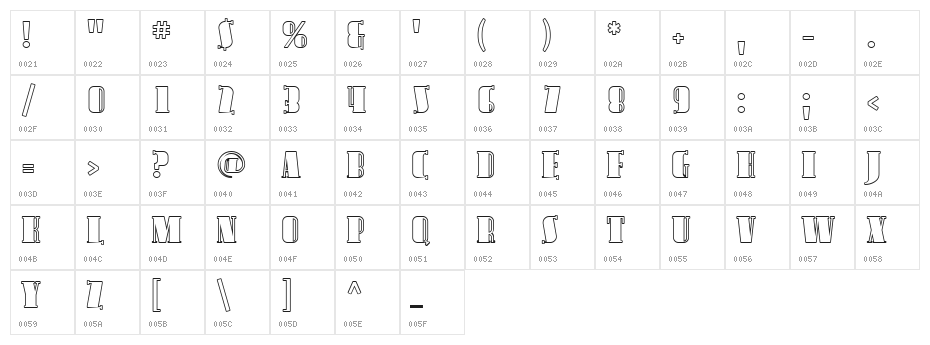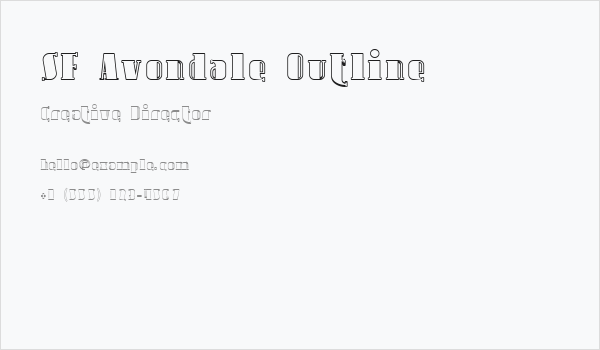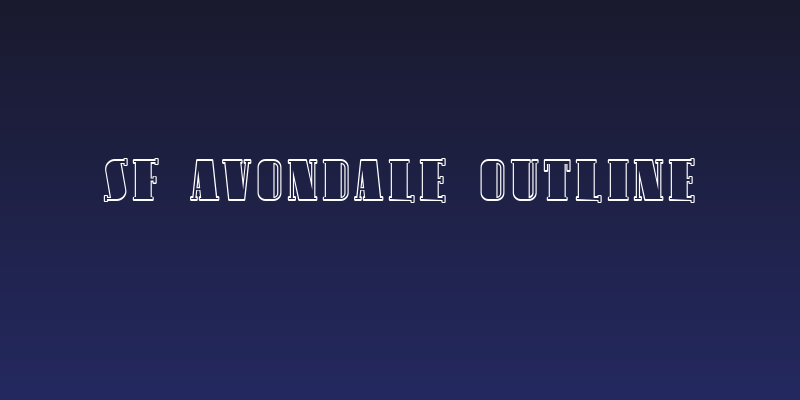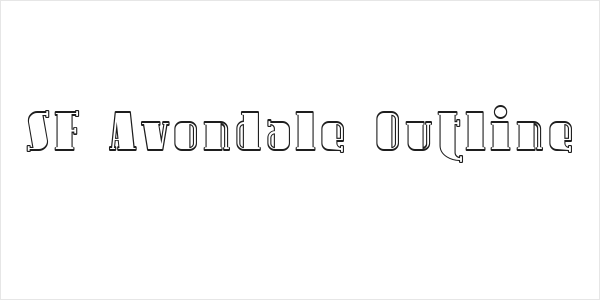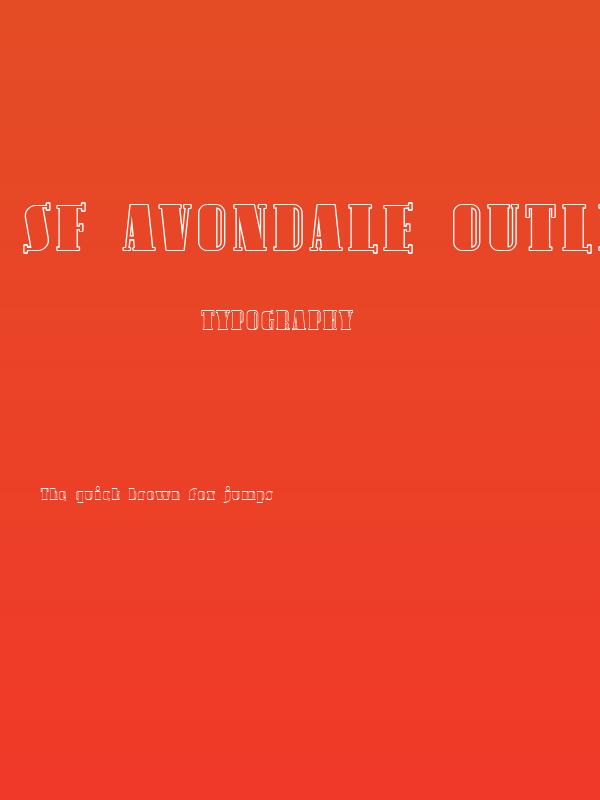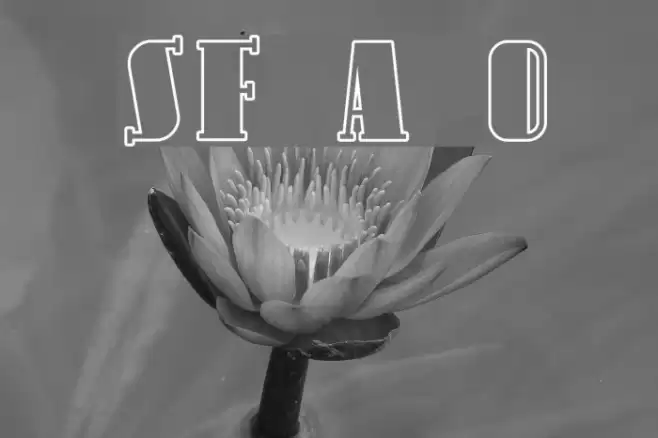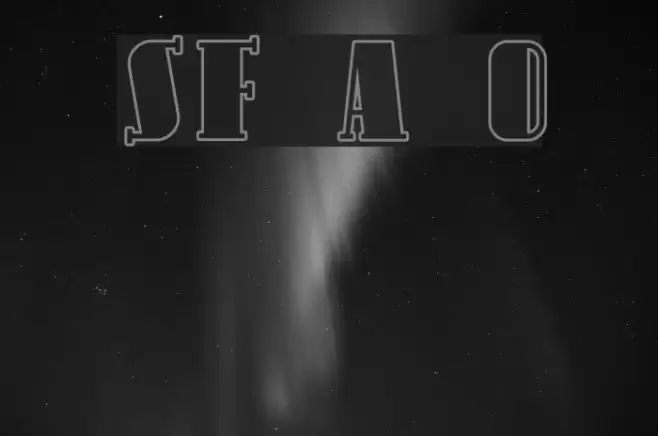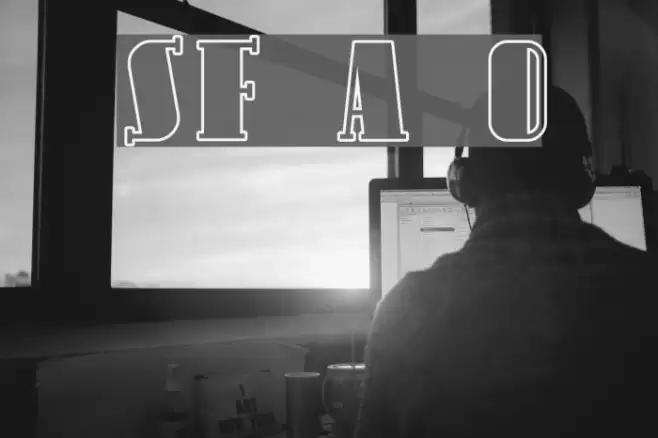
SF Avondale Outline Font
SF Avondale Outline Description
This font features a bold, outlined style with a strong presence. The uppercase letters are tall and commanding, with a slight serif that adds a touch of elegance. The lowercase letters maintain a consistent style, with a unique flair in certain characters like 'g' and 'y'. The numbers are equally bold, ensuring readability and impact. Special characters are designed to match the overall aesthetic, making this font versatile for various uses. The outlined nature of the font gives it a modern and stylish appearance, suitable for eye-catching designs.